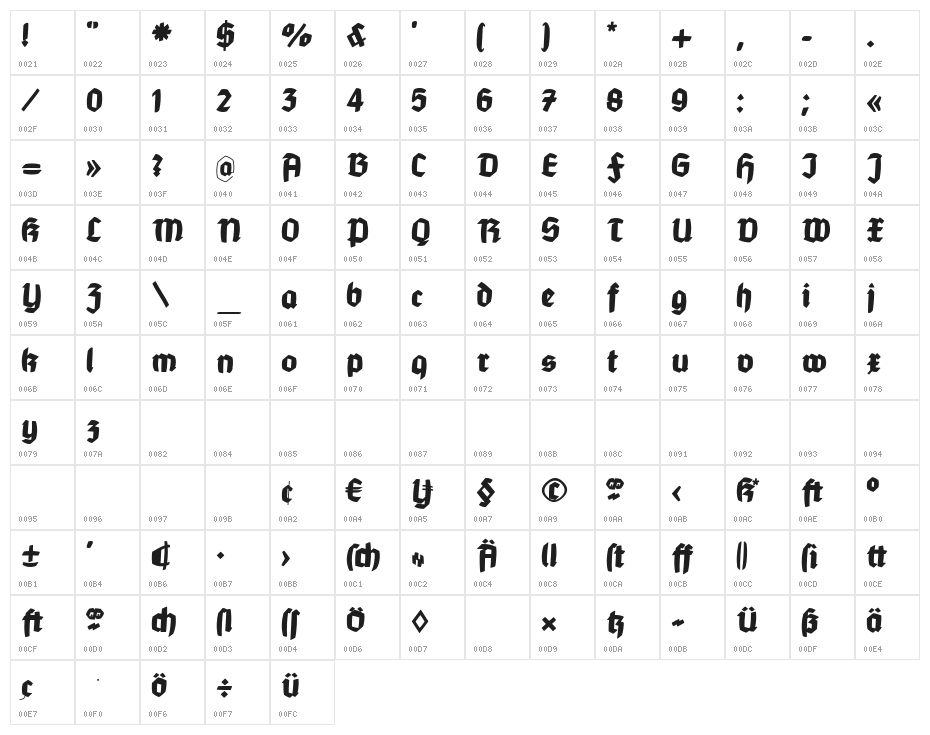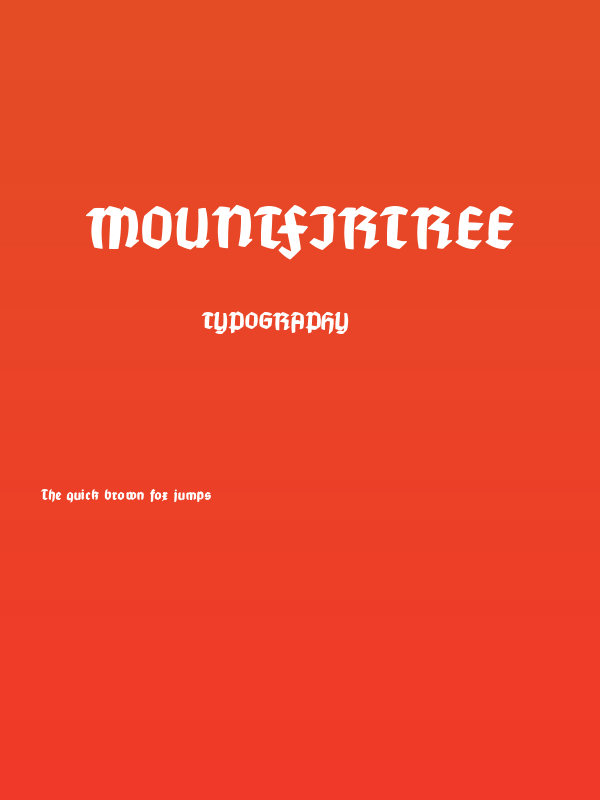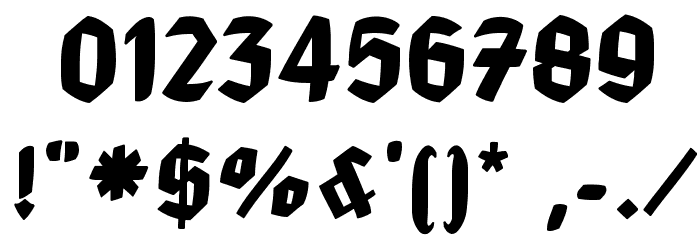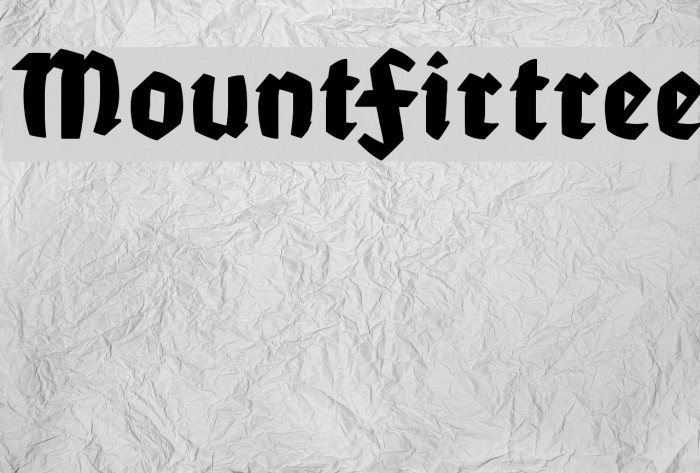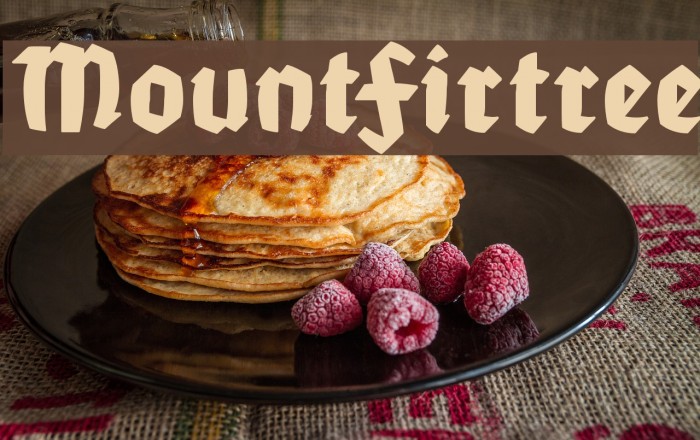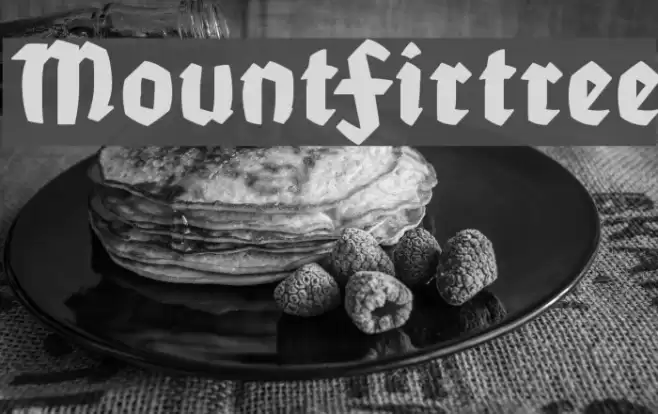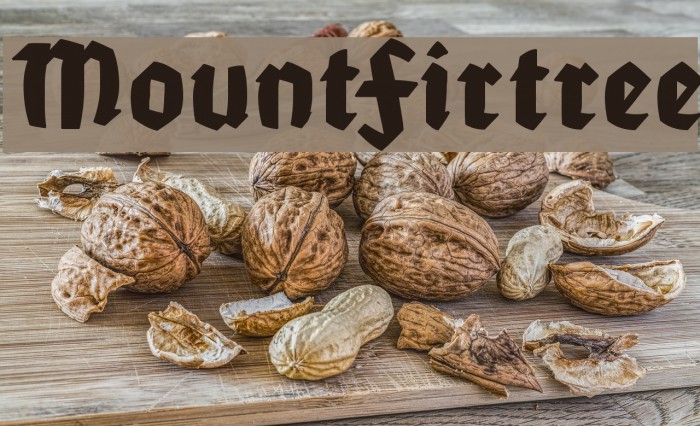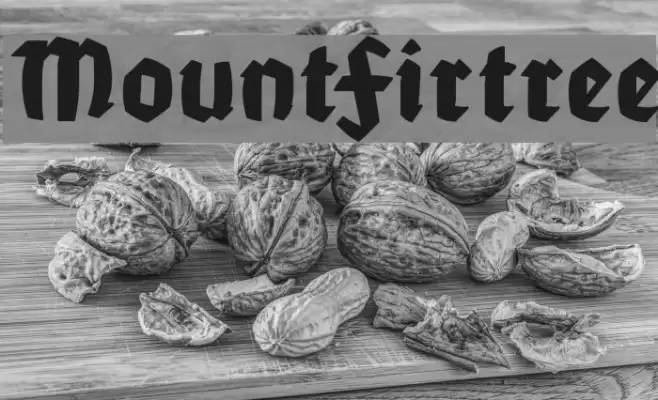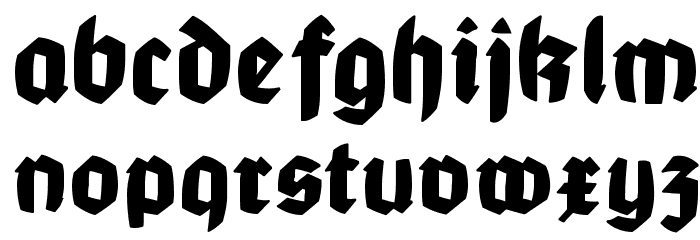
MountFirtree Font
MountFirtree Description
This font features a bold and dramatic style reminiscent of traditional blackletter typefaces. The characters are sharply angular with thick strokes, creating a strong visual impact. The uppercase and lowercase letters maintain a consistent style, with intricate details that add to the font's ornate appearance. The numbers and special characters are designed to match the overall aesthetic, ensuring uniformity across all glyphs. This font's distinctive style makes it ideal for projects that require a historical or gothic touch.
| Overall Style | Gothic, Historical |
| Use Case | Logos, Headlines, Decorative text |
| Proposed Projects | Suitable for historical documents, gothic-themed designs, book covers, posters, and branding that requires a dramatic flair. |